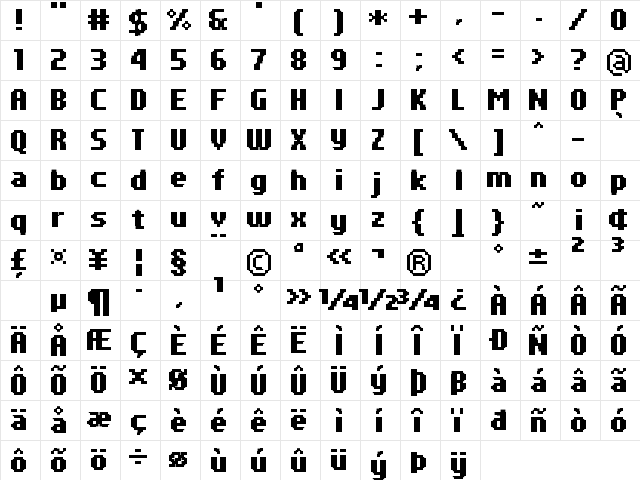
Complete PF Tempesta Seven Condensed Bold glyph index. Displaying only characters natively supported by PF Tempesta Seven Condensed Bold font.
PF Tempesta Seven Condensed is a composed and adaptable typeface that performs quietly and consistently across a wide range of design contexts. Its bold stroke weight gives it real presence on the page. Its narrow stance lets it pack a punch even in space-constrained designs.